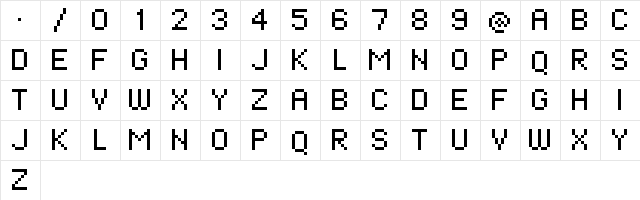
standard 07_55 Regular
Design Context for standard 07_55 Typeface
standard 07_55 takes a measured approach to typography — its balanced proportions and neutral character make it a reliable workhorse for both digital and print work.
Pro Tip: Use standard 07_55 in both headline and body roles to test its range before committing to a single application.